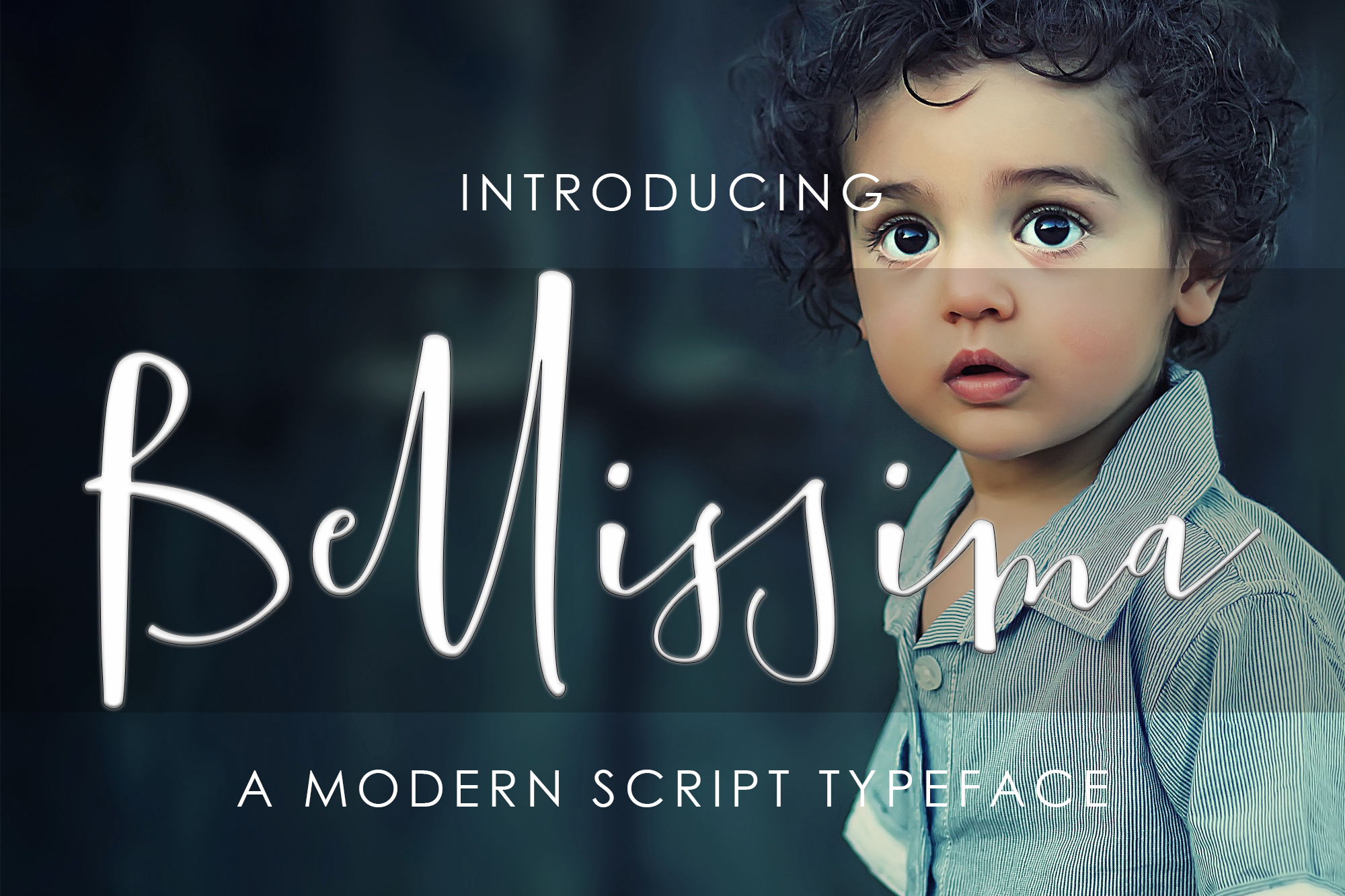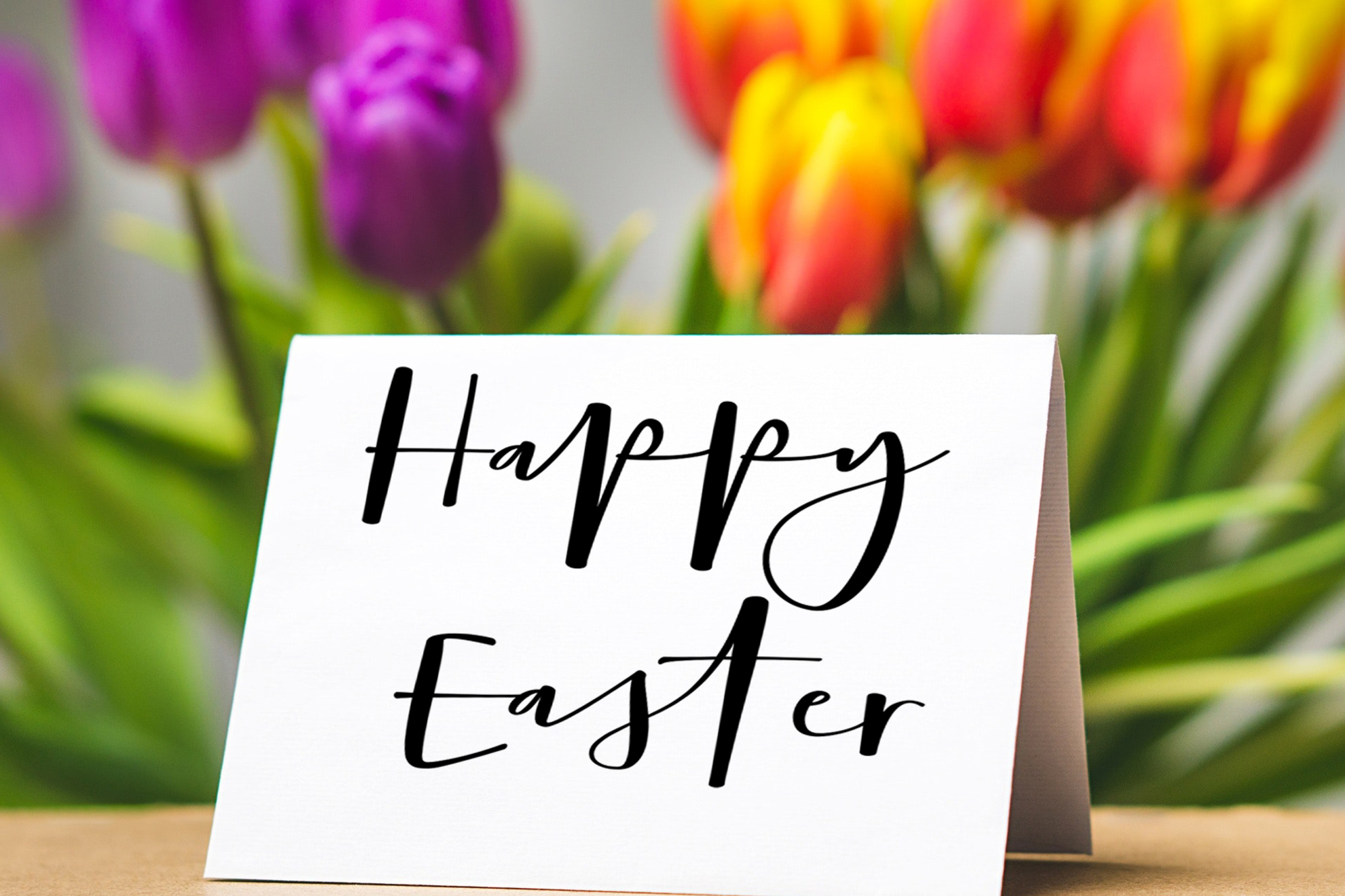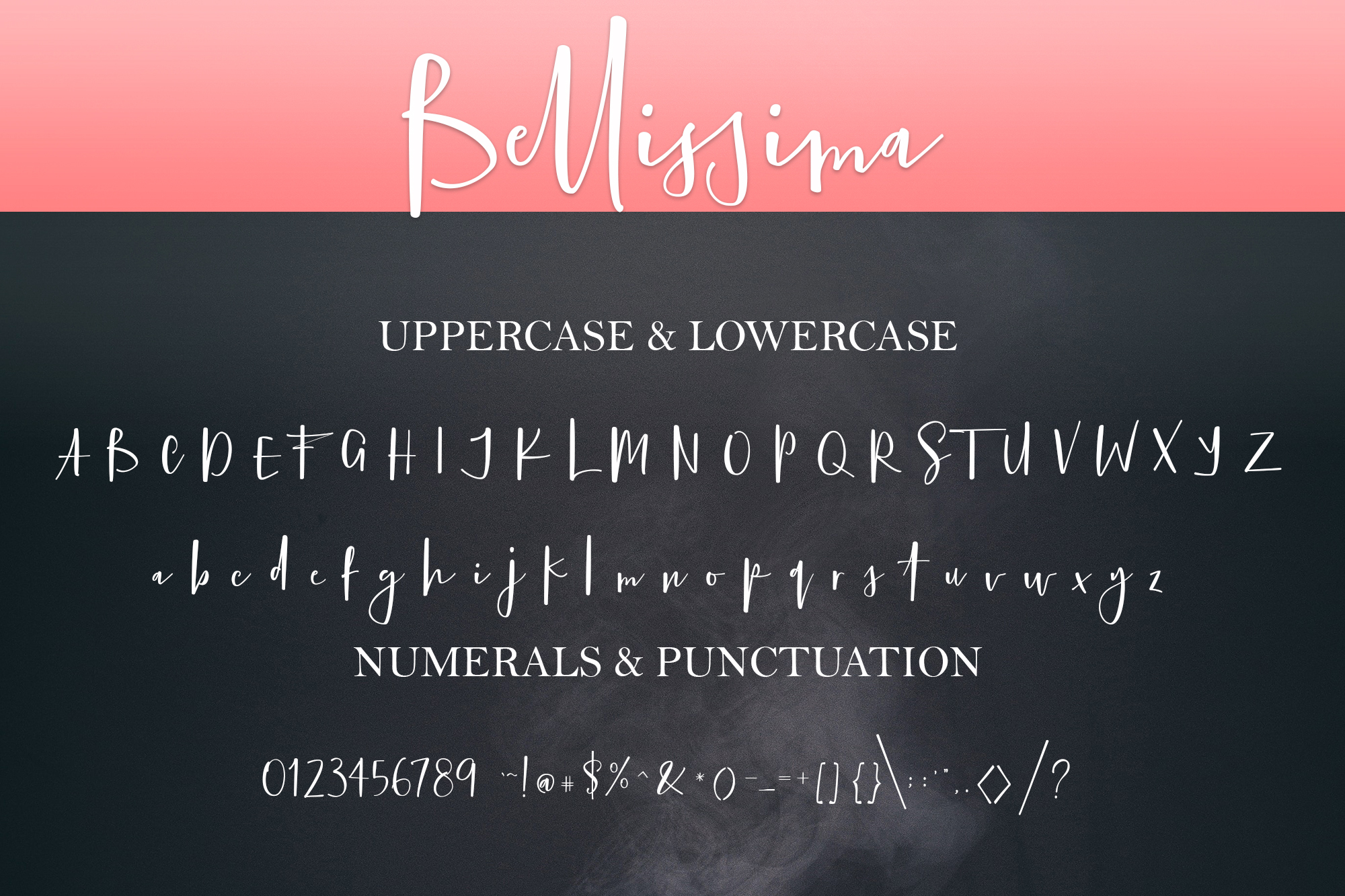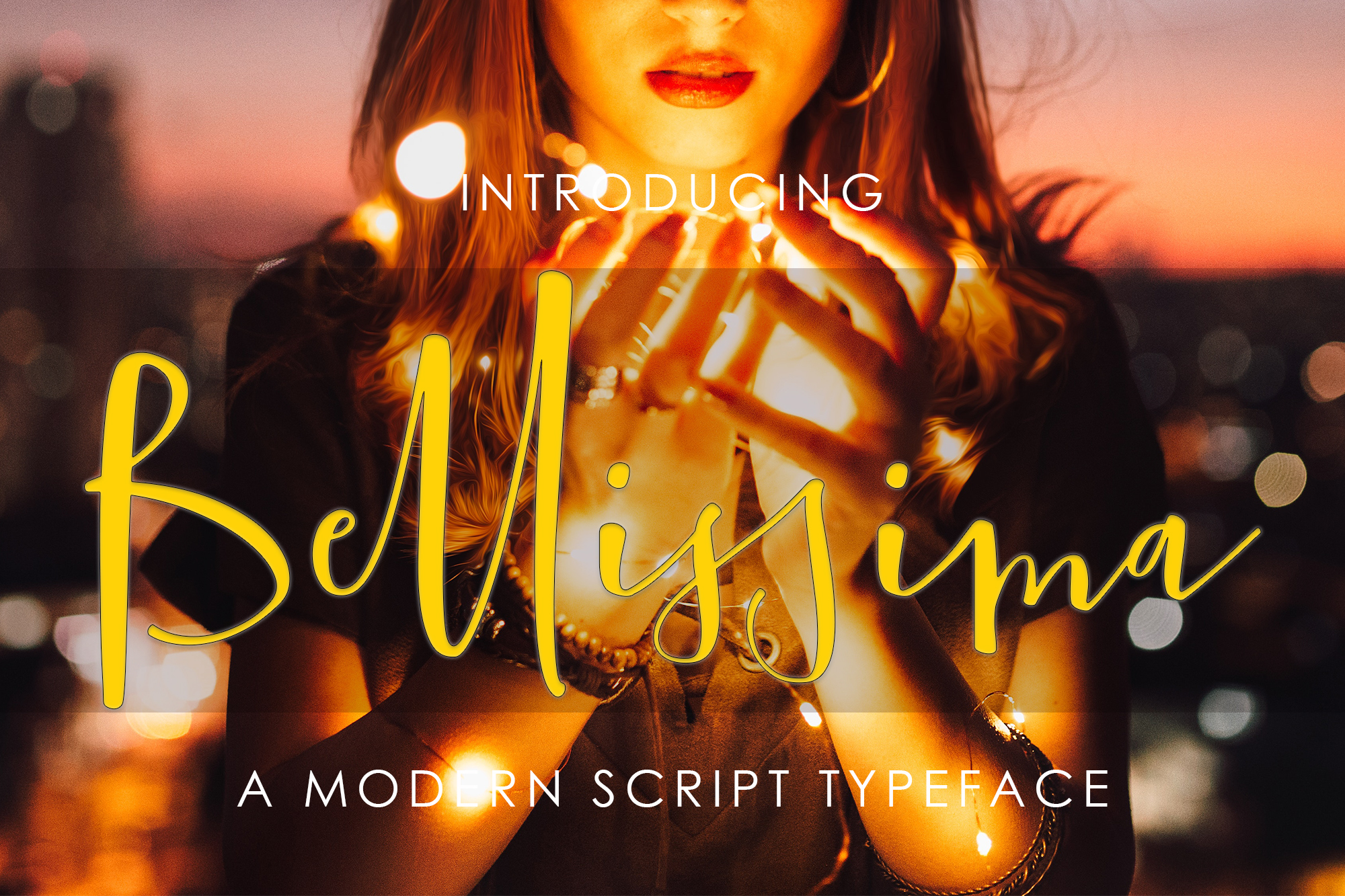
Bellissima Font
About Bellissima Font
Bellissima is a bold and fun script font, suitable for headlines and other display purposes. This font is a great combination of classic style merged with modernity for truly timeless typography.